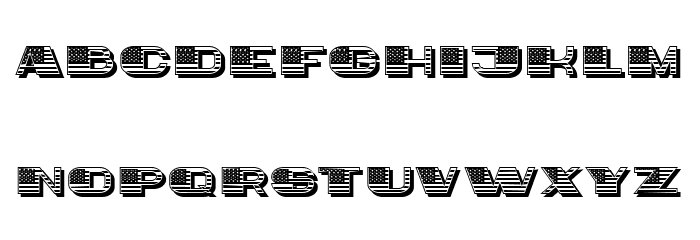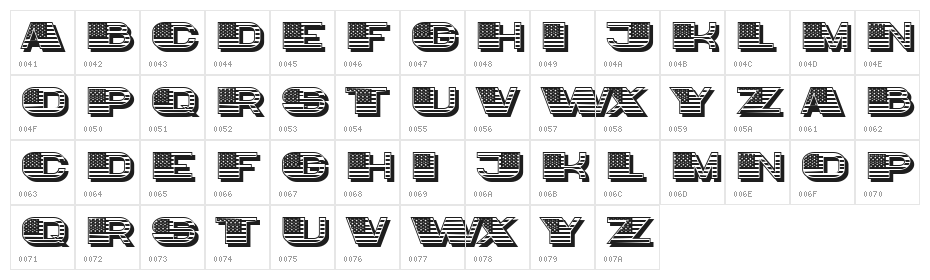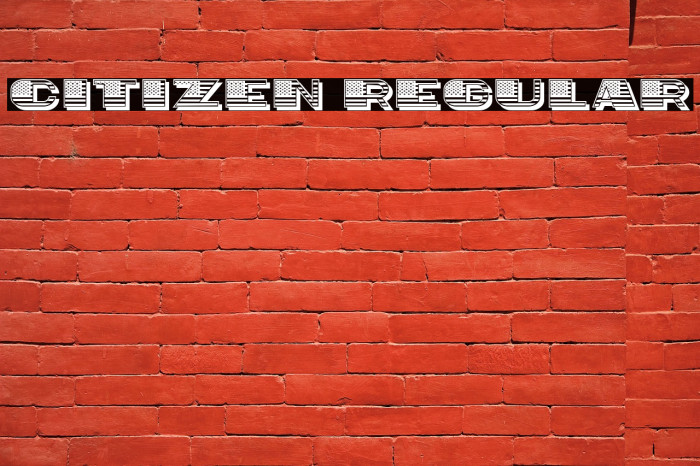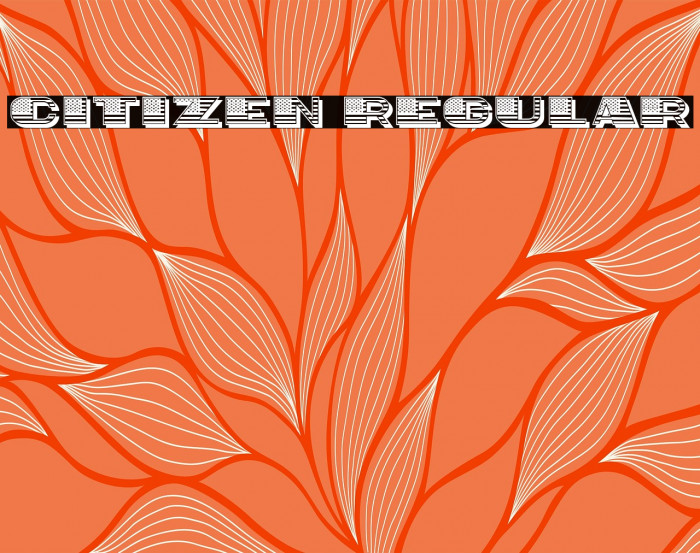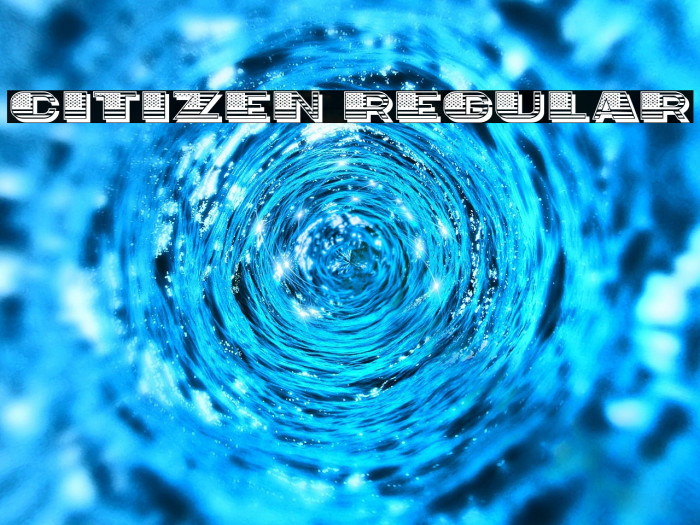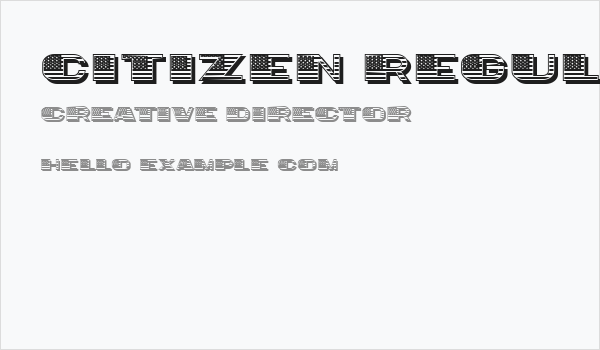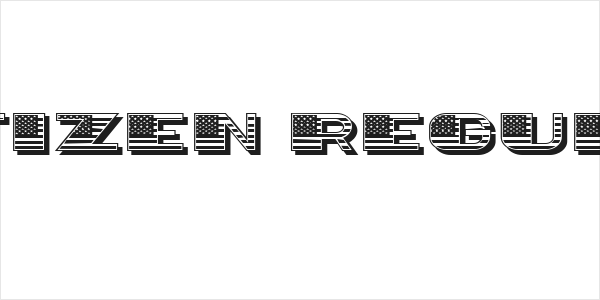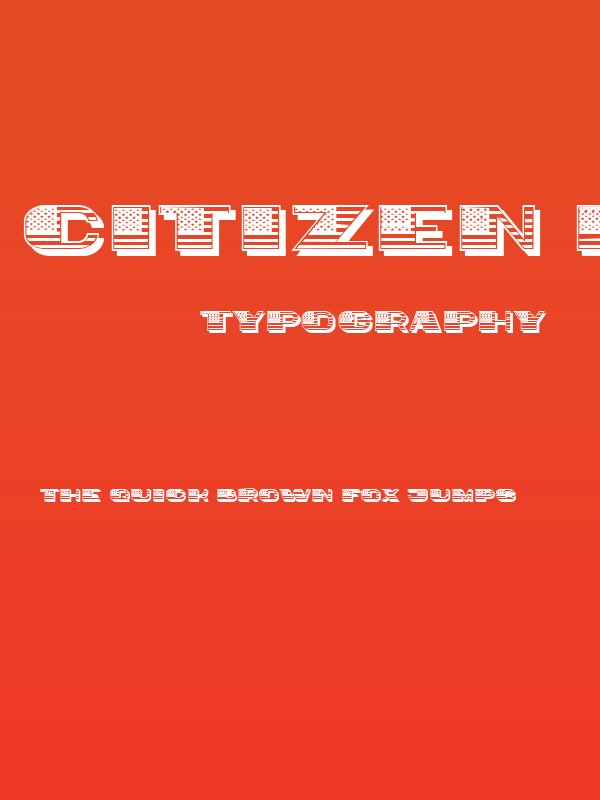
Citizen Regular Font
Citizen Regular Description
This font features a bold, decorative style with a patriotic theme. Each character is filled with a pattern reminiscent of the American flag, incorporating stars and stripes within the letterforms. The design is striking and eye-catching, making it suitable for projects that require a strong visual impact. The characters are uppercase only, with a consistent width and a bold weight, ensuring uniformity across the text. The font's unique design makes it ideal for thematic displays, posters, and other creative applications where a sense of national pride or a bold statement is desired.
| Proposed Projects | Ideal for patriotic-themed posters, event banners, and creative displays. |